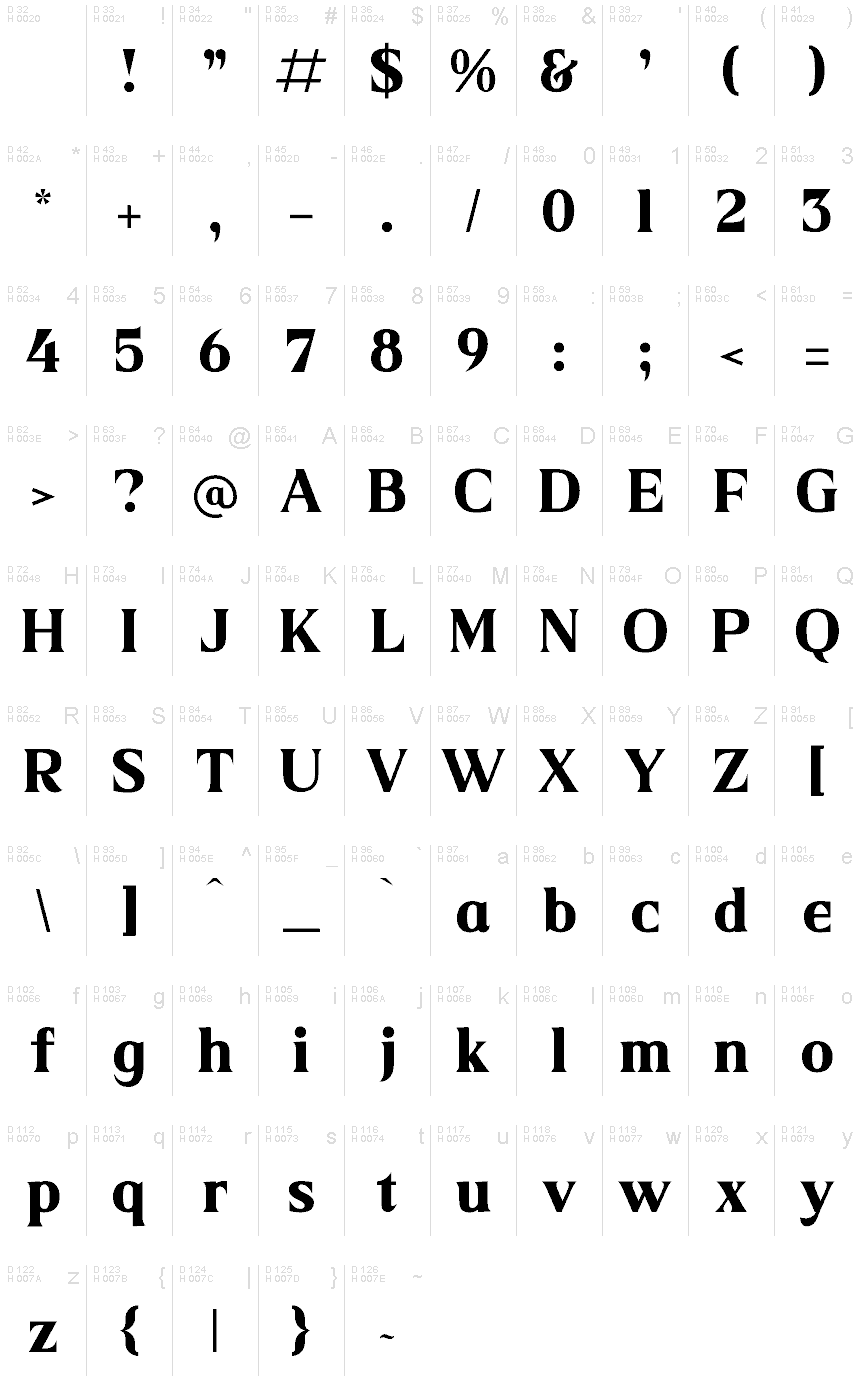
Merika
Merika font, designed by Storytype Studio, is a bold serif typeface that boasts a classic and elegant aesthetic. It captures a formal essence enriched with traditional influences. This refined font commands an authoritative presence, ideal for bringing sophistication to your design projects.